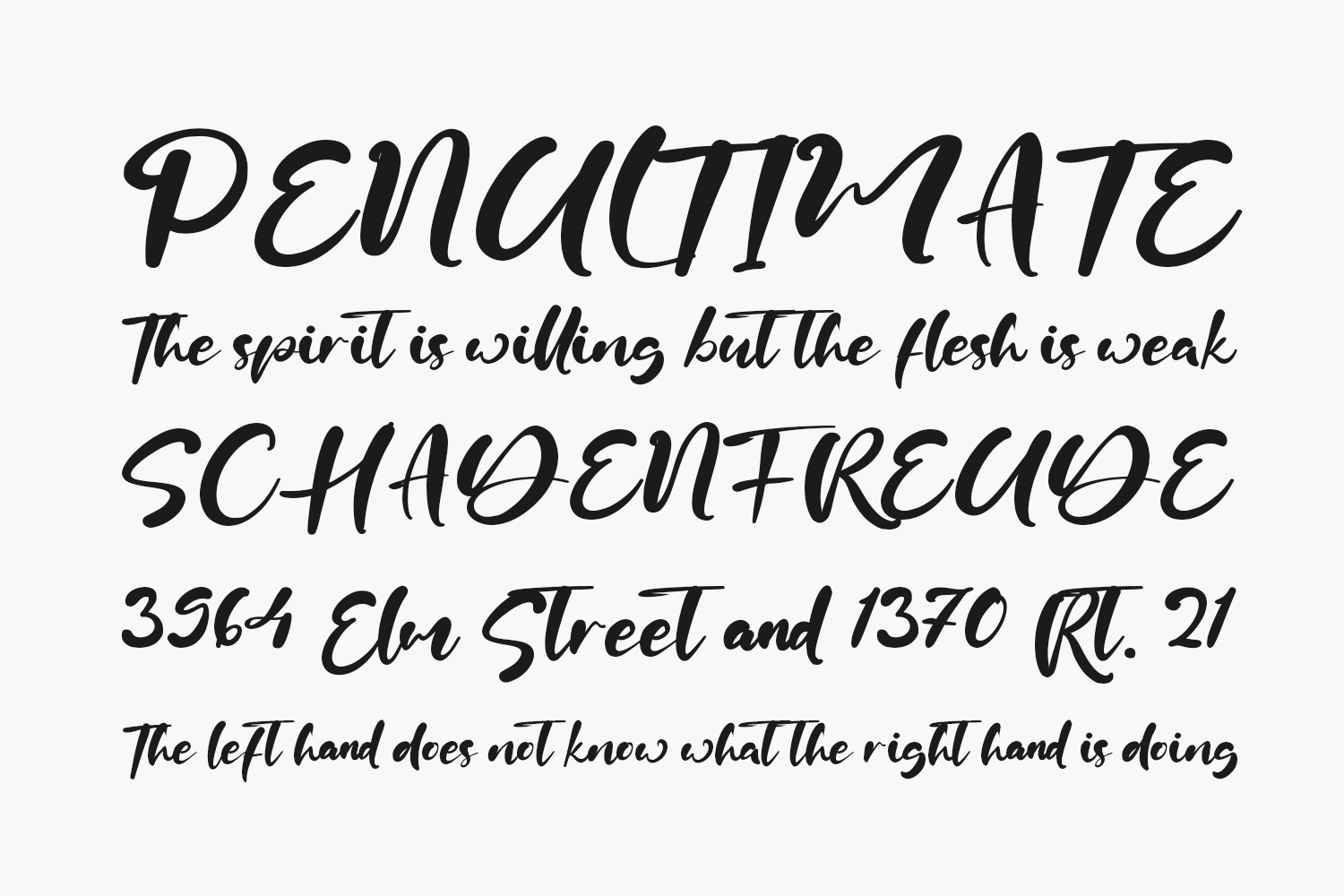
Julia Antonio Free Font is a modern and playful handwritten script font. It’s great for crafters and designers. It maintains its classy calligraphic influences while feeling contemporary and fresh. Fall in love with it and bring your projects to the highest levels. Julia Antonio Free Font was designed by Kong Font and is free for personal use only. Please purchase the full version for commercial use.